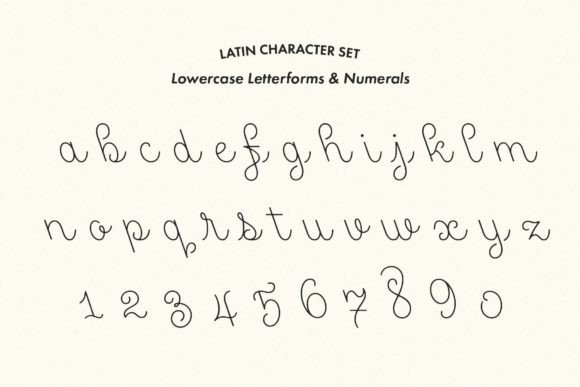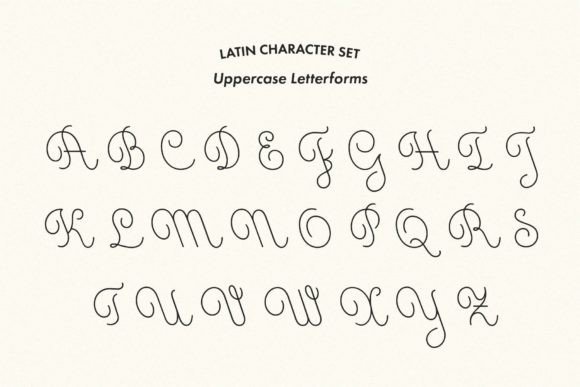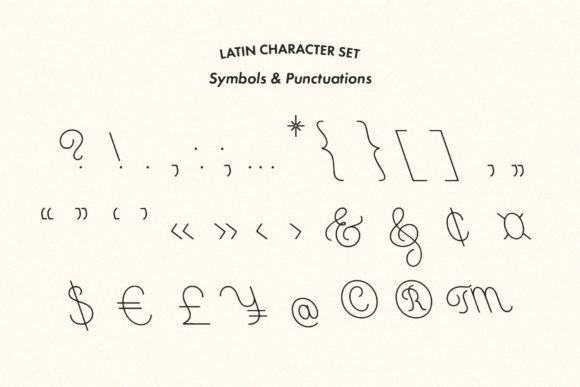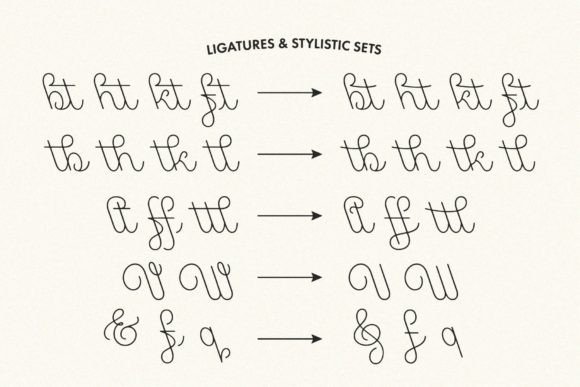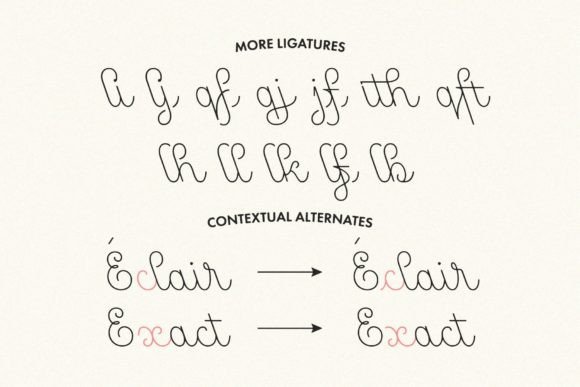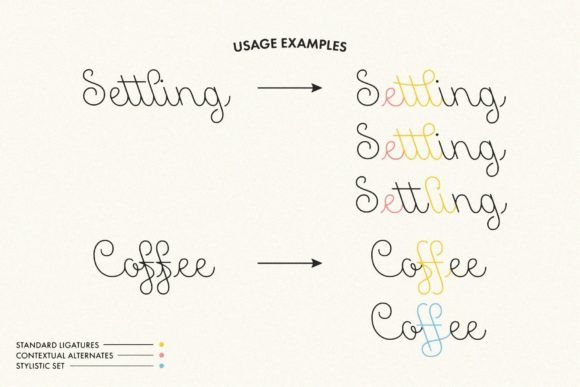
Introduction to Midnight Diner Thin Font
Midnight Diner.
A multi-layered dimensional script font family featuring thin, bold, outline, and shadow capabilities, with a left-leaning slant to boot You can experiment with various layer combinations and colors.
Key Features of Midnight Diner Thin Font